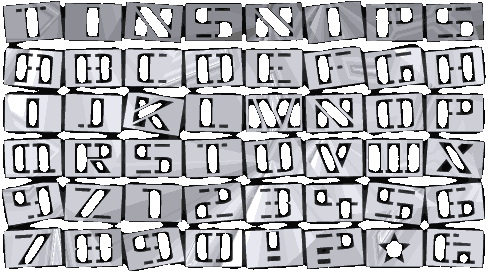
Alternate upper and lowecase when using repeat letters. The word "TINSNIPS" at the top of this page has repeat letters but they're at different angles from one another.